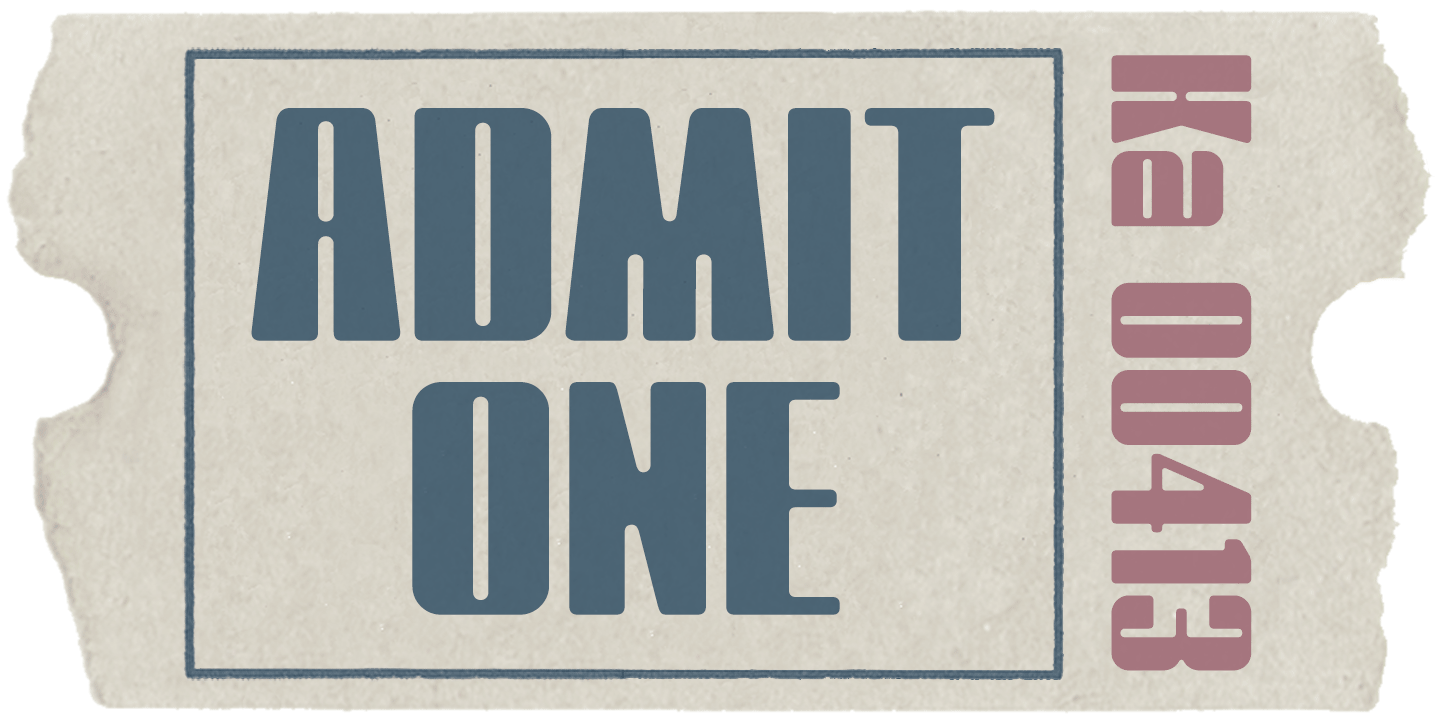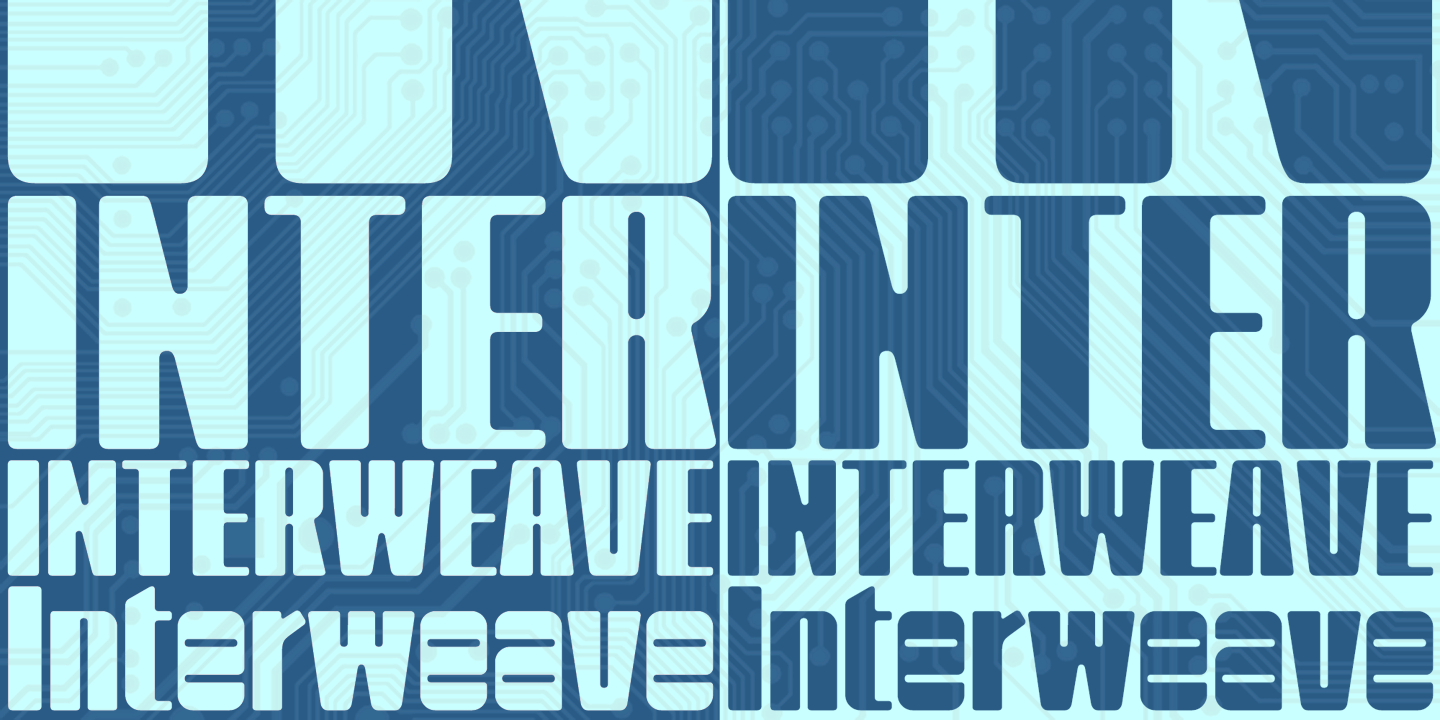
About Interweave
Interweave is a square display face with rounded corners, inspired by beefy fonts from the 60s and 70s such as Bullion and Deutsch Black. An alternating criss-cross effect is borrowed from Hunyady Gothic, the opposing lowercase a, e and s providing a…